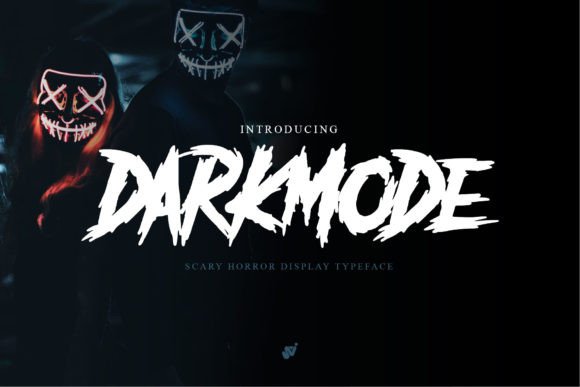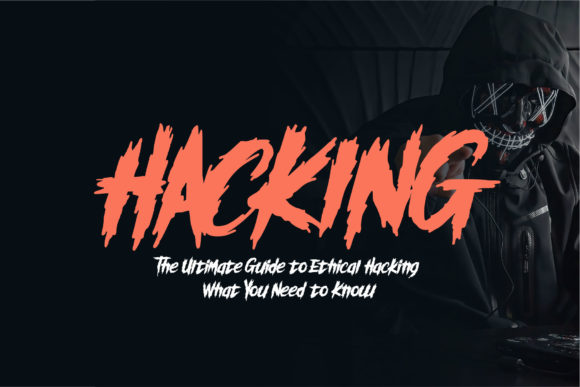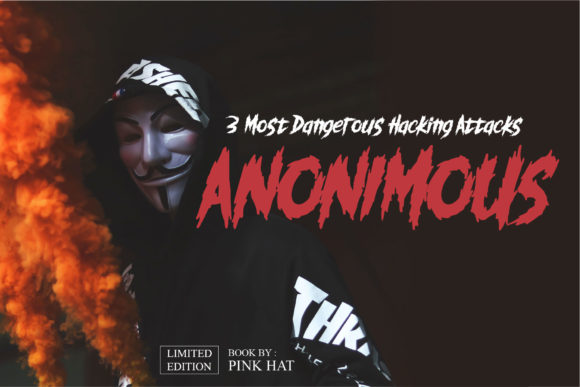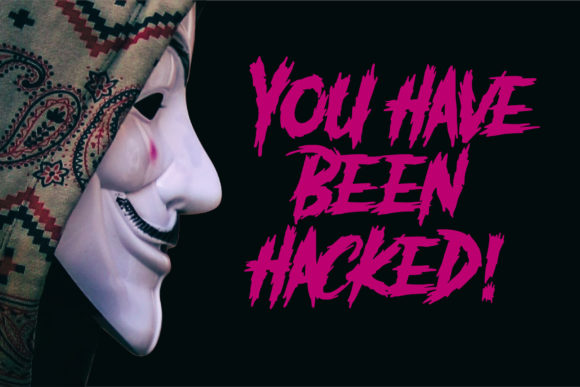
Darkmode – Horror Gothic Typeface Font
About the Darkmode – Horror Gothic Typeface Font
Crafted with precision, the Darkmode – Horror Gothic Typeface Font is ready to bring your ideas to life. Darkmode was inspired by gothic, scary, protest, and horror media. Combined with a hand-drawn brush makes the typeface looks very instant and messy.
Uses for film, quotes, cover book, title, cover album, logo, clothing, invitation, event, labels, poster, etc.
Darkmode excels in applications requiring a bold, rebellious aesthetic. It’s ideal for headlines, posters, and branding projects for horror, music, or edgy fashion. The hand-drawn texture works particularly well on short, impactful text, such as logos, album covers, and short quotes. Avoid using it for body text or UI elements; its irregular stroke weight and messy texture impair readability in longer passages.
Pairing Darkmode effectively requires a contrasting typeface. A clean, geometric sans-serif like Futura or a neutral serif like Garamond will provide a strong visual counterpoint. This creates visual hierarchy and prevents the design from becoming overwhelming. For a more dramatic contrast, consider pairing it with a minimalist script font.
The font’s core personality is aggressive and raw, reflecting its gothic horror influences. This makes it unsuitable for projects requiring elegance or sophistication.
Darkmode – Horror Gothic Typeface Font Usage Examples
Darkmode – Horror Gothic Typeface Font Example